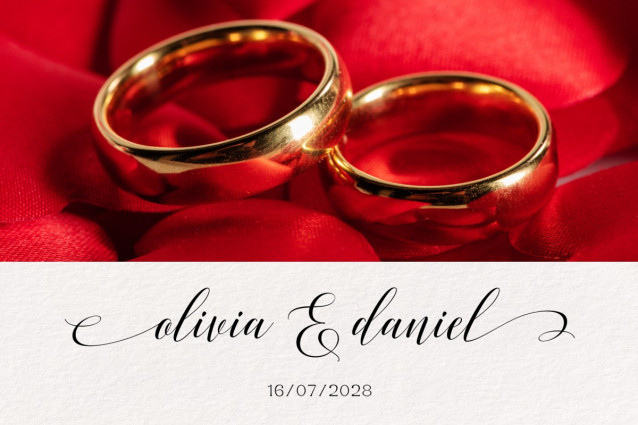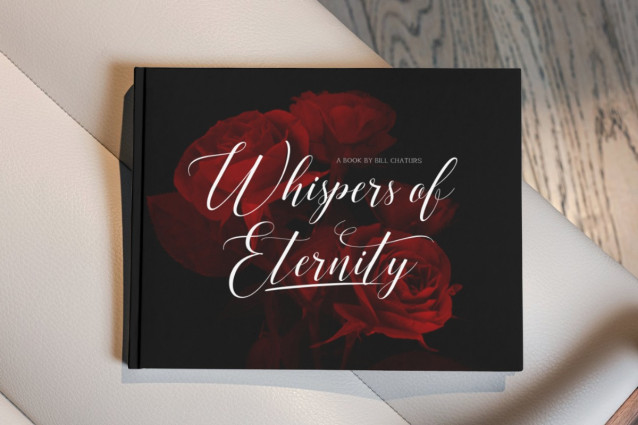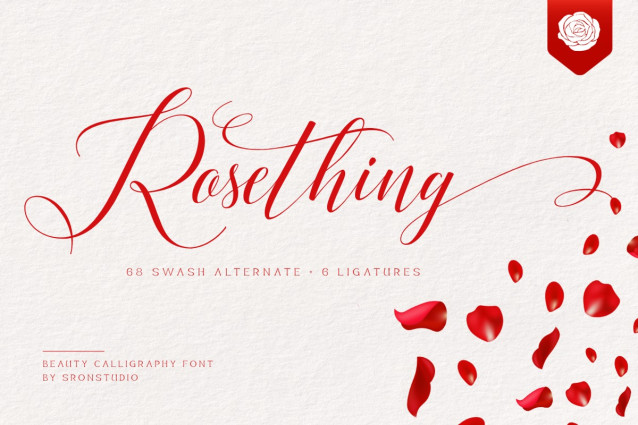
Rosething Handwritten Font is a beautiful calligraphy font that captures elegance, romance, and graceful artistry. With its flowing strokes, delicate curves, and refined letterforms, this font is perfect for wedding invitations, luxury branding, greeting cards, logos, and romantic design projects. Rosething brings a soft and sophisticated touch to every word, creating typography that feels personal, charming, and timeless.